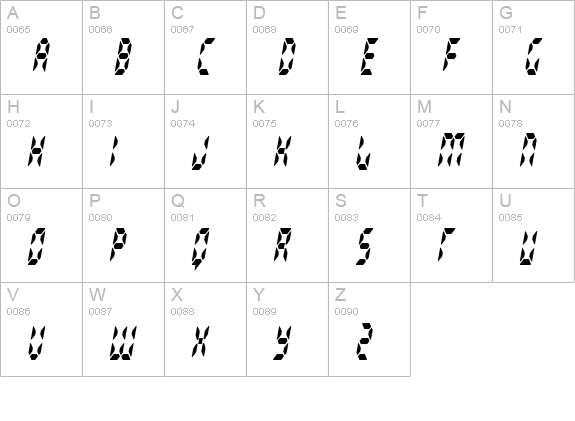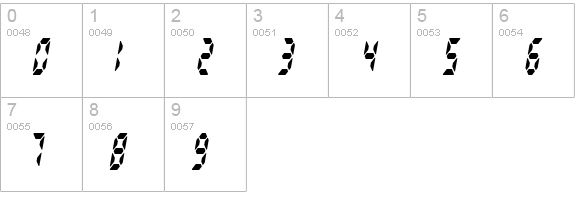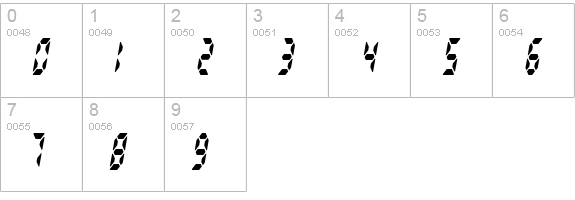
Radioland Slim Font Details
Radioland Slim font is a visually stunning typeface that effortlessly combines modern aesthetics with a touch of retro charm. With its sleek and slender letterforms, this font exudes sophistication and elegance, making it perfect for a wide range of design projects. The slender strokes of Radioland Slim font create a sense of fluidity and movement, giving your words a dynamic and captivating appearance. Whether you're designing a logo, crafting a headline, or creating a poster, this font will add a touch of contemporary style and finesse to your work. What makes Radioland Slim font even more appealing is the fact that it is freely available to download at FontsMarket.com. This means that you can access this exceptional typeface without any hassle or cost, allowing you to bring your creative visions to life without breaking the bank. Radioland Slim font is highly versatile and can be used across various design applications, from print to digital media. Its clean and legible letterforms ensure readability at any size, making it suitable for both large-scale designs and smaller text elements. So, whether you're a professional graphic designer or a creative enthusiast, Radioland Slim font is a must-have addition to your font collection. With its sleek and modern design, combined with the convenience of being freely available to download at FontsMarket.com, this font will surely elevate your designs to new heights.